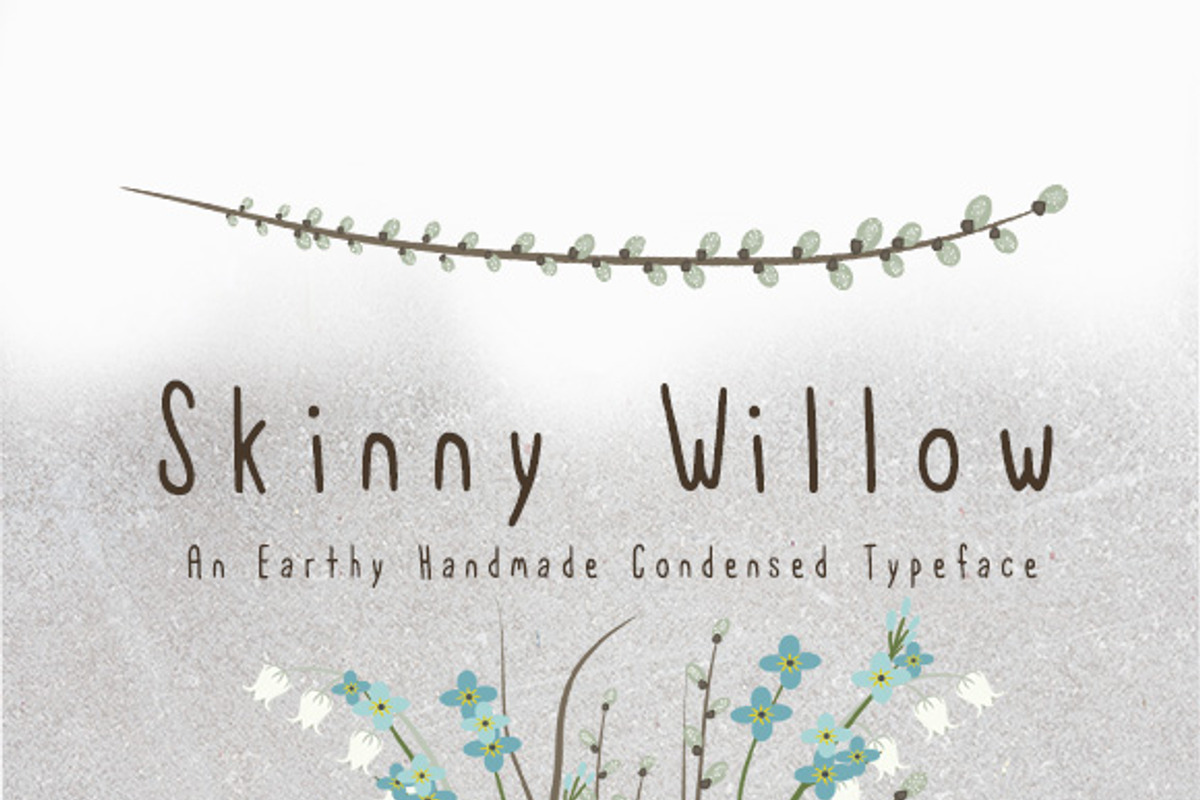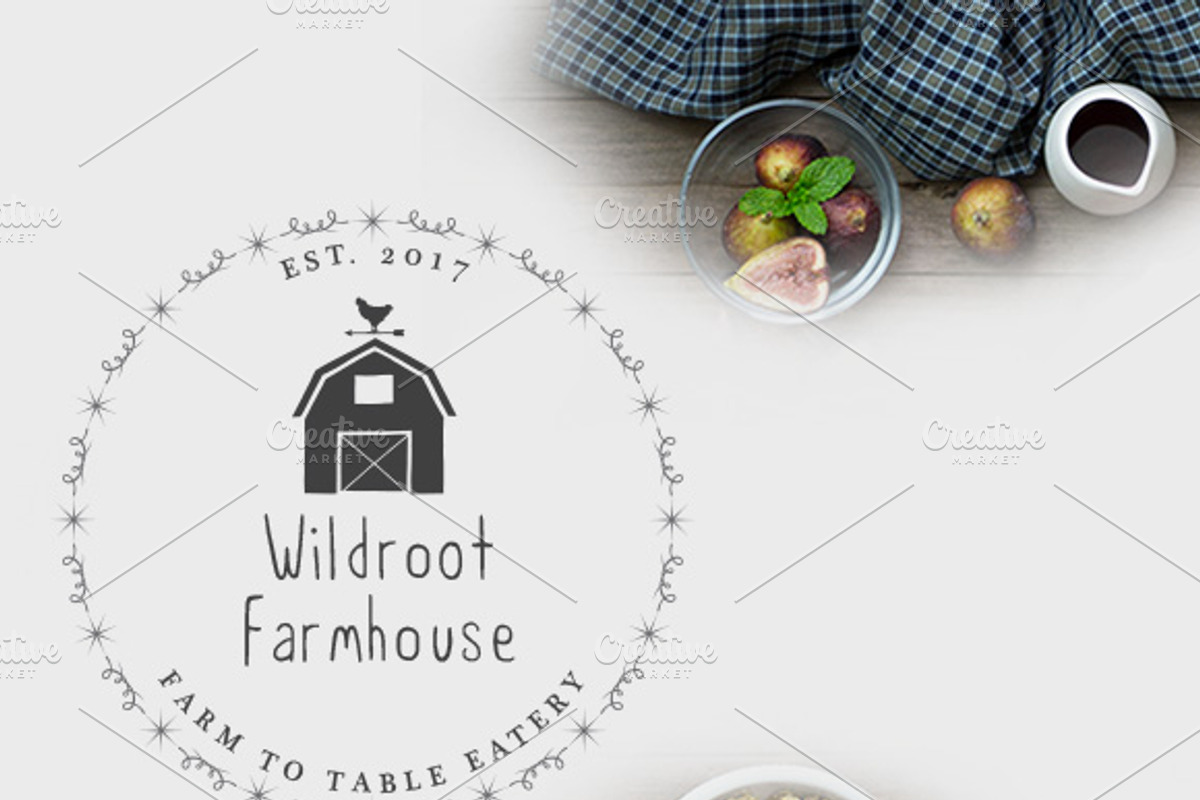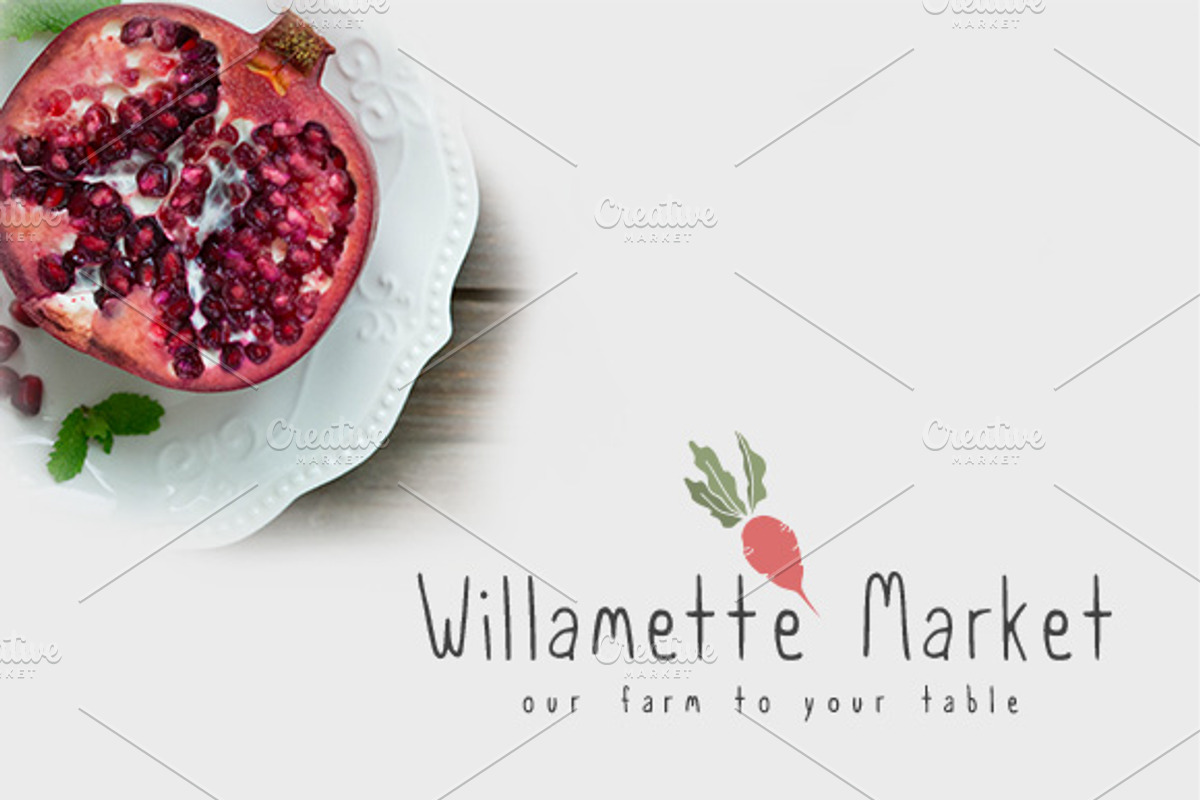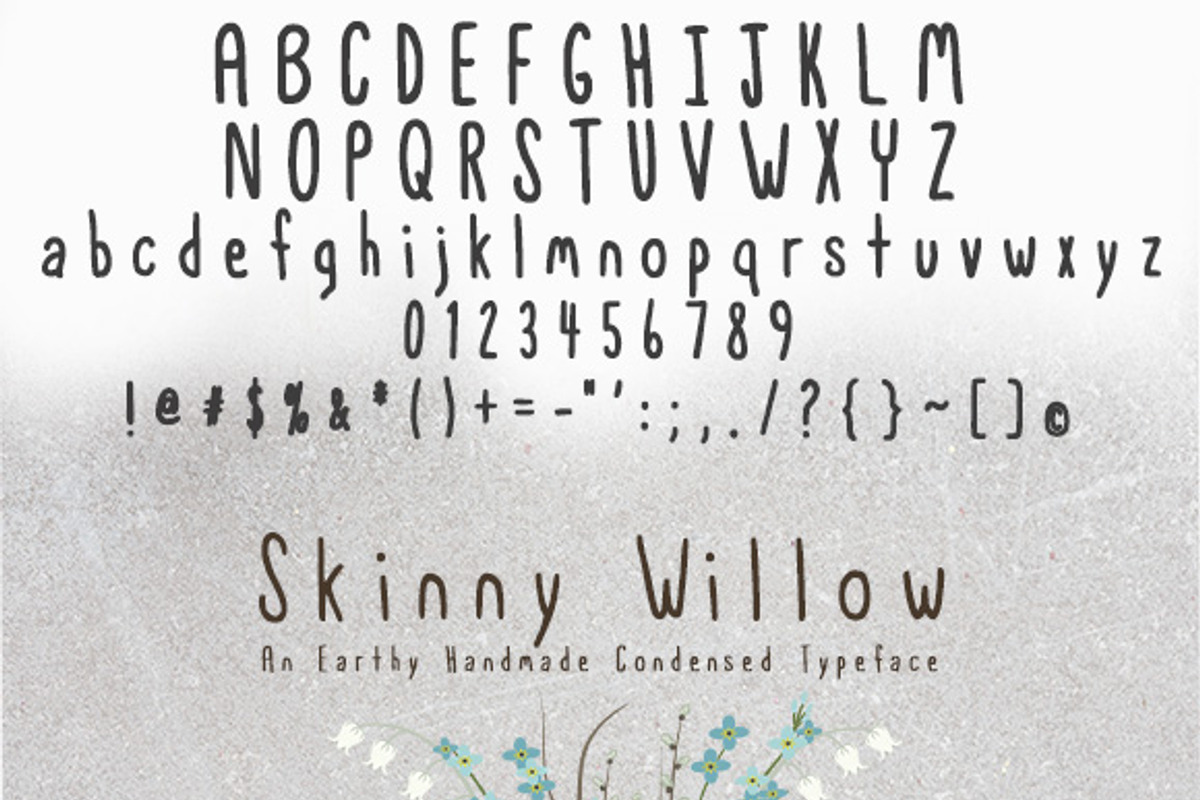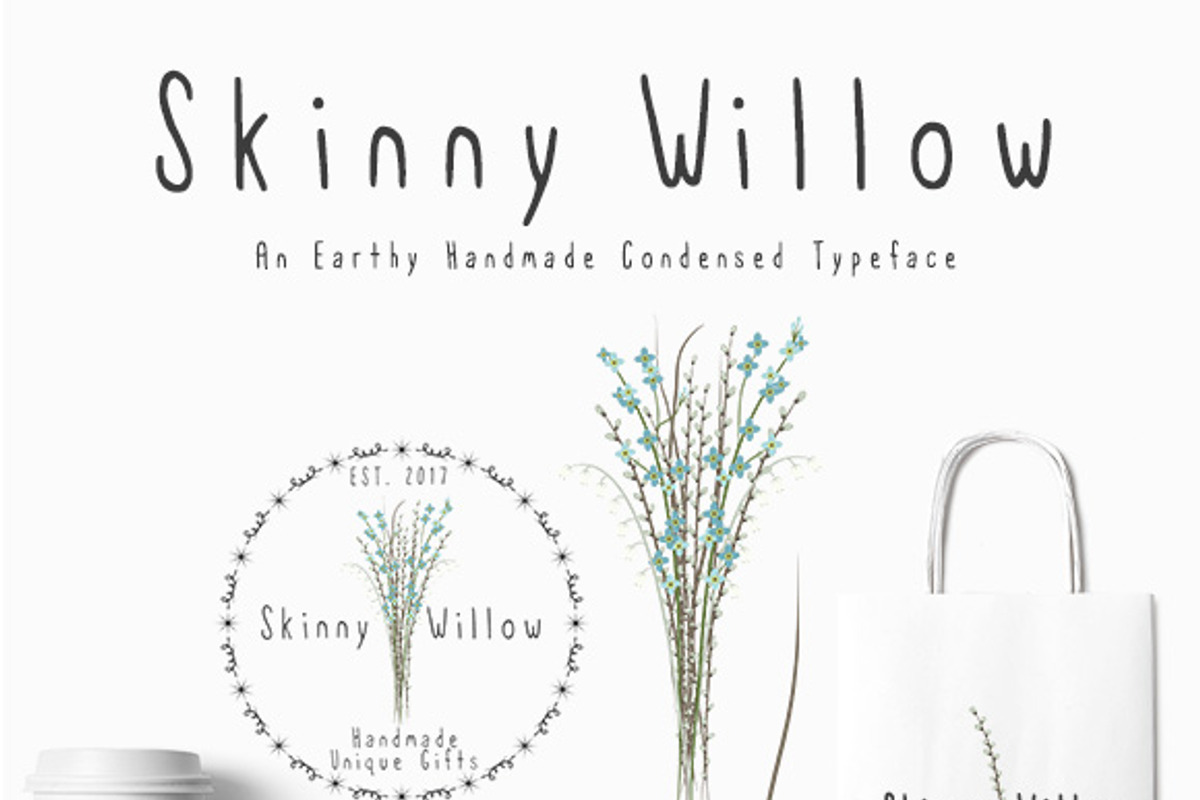
Skinny Willow Earthy Handmade Font
Skinny Willow is an earthy handwritten font.
Skinny Willow Earthy Handmade Font by Lone Star I&D fits naturally into Branding, posters, packaging, typography.